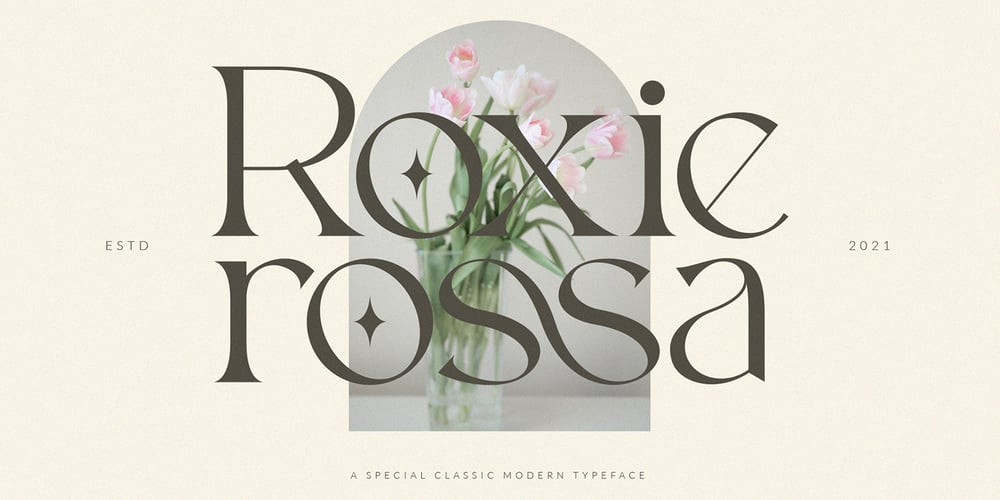
Roxie rossa
Roxie rossa font
Roxie rossa Font Family was designed by Fatoni Nurman and published by ToniStudio. Roxie rossa contains 1 styles and family package options. Introducing the new font Roxie rossa Ligature Sans serif!!! Roxie rossa is a modern and elegant Sans serif font. This font is modern and nostalgic and is perfect for logos, magazines, social media. It’s matched and ready to be used together for your next design! For those of you who need a touch of elegance, style, classy, ​​chic and modernity to your designs, this font was created for you!Roxie rossa is built with OpenType features and includes ligatures, alternatives, numbers, punctuation, and also supports other languages.